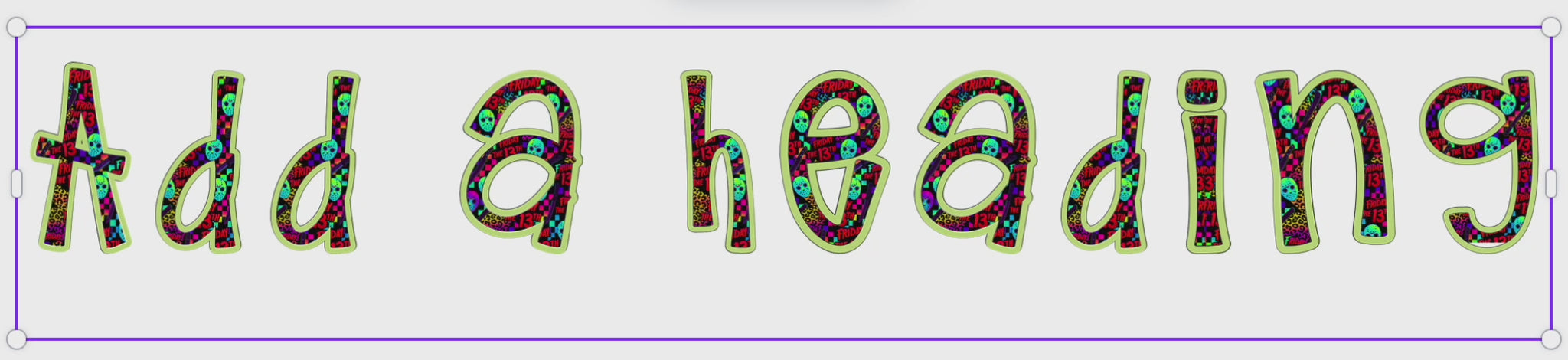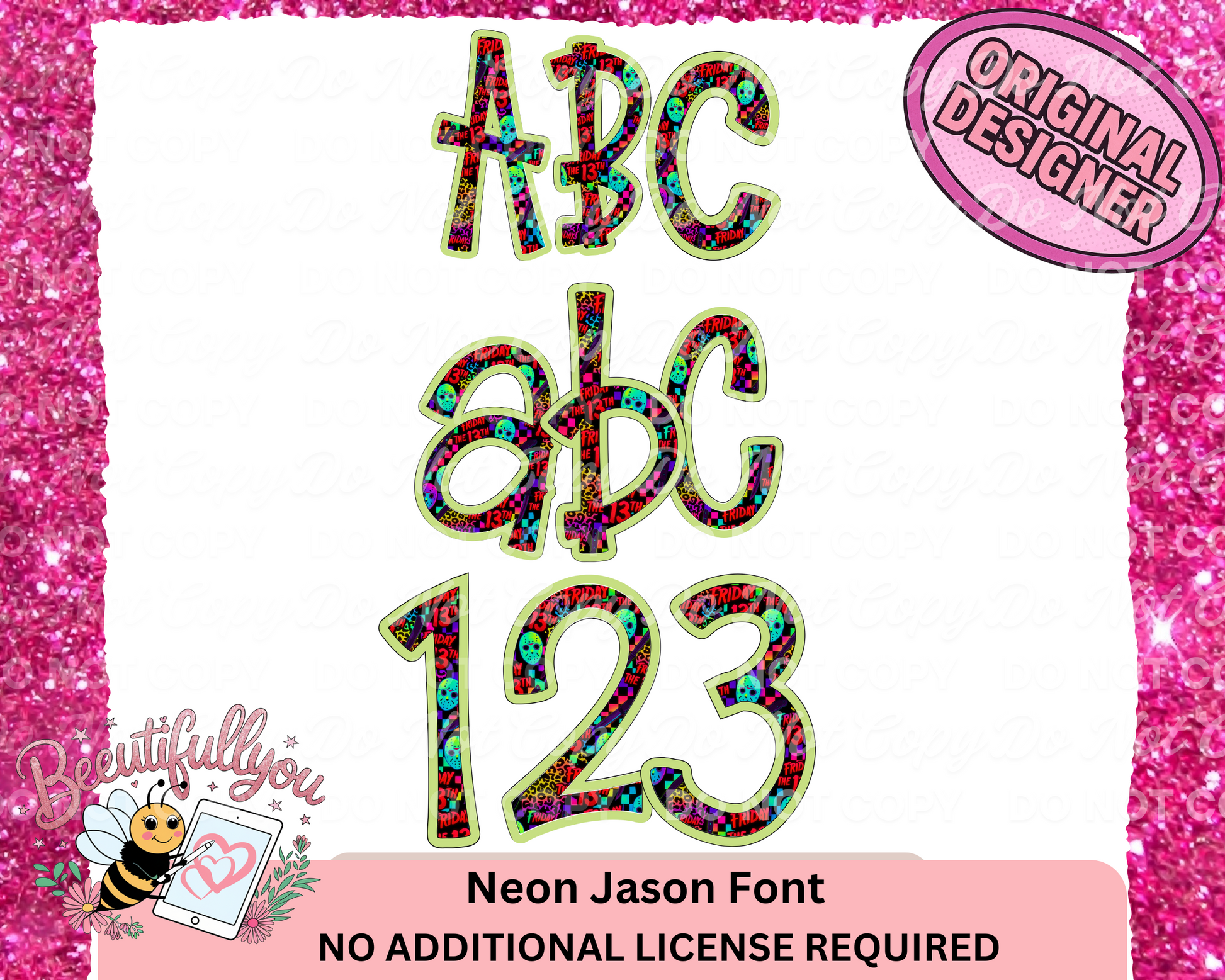
Neon Jason Horror Font • ABC 123 Clipart + OTF File • Friday the 13th Digital Letters
Unleash the ultimate slasher vibe with this Neon Jason Horror Font — perfect for spooky season designs, edgy school bundles, and Friday the 13th themed graphics! This product includes:
🔪 Full A-Z + a-z + 0-9 clipart set in bright neon horror style
Whether you're designing for Halloween, horror lovers, or just want to add a bold pop of spooky fun — this font is totally killer.